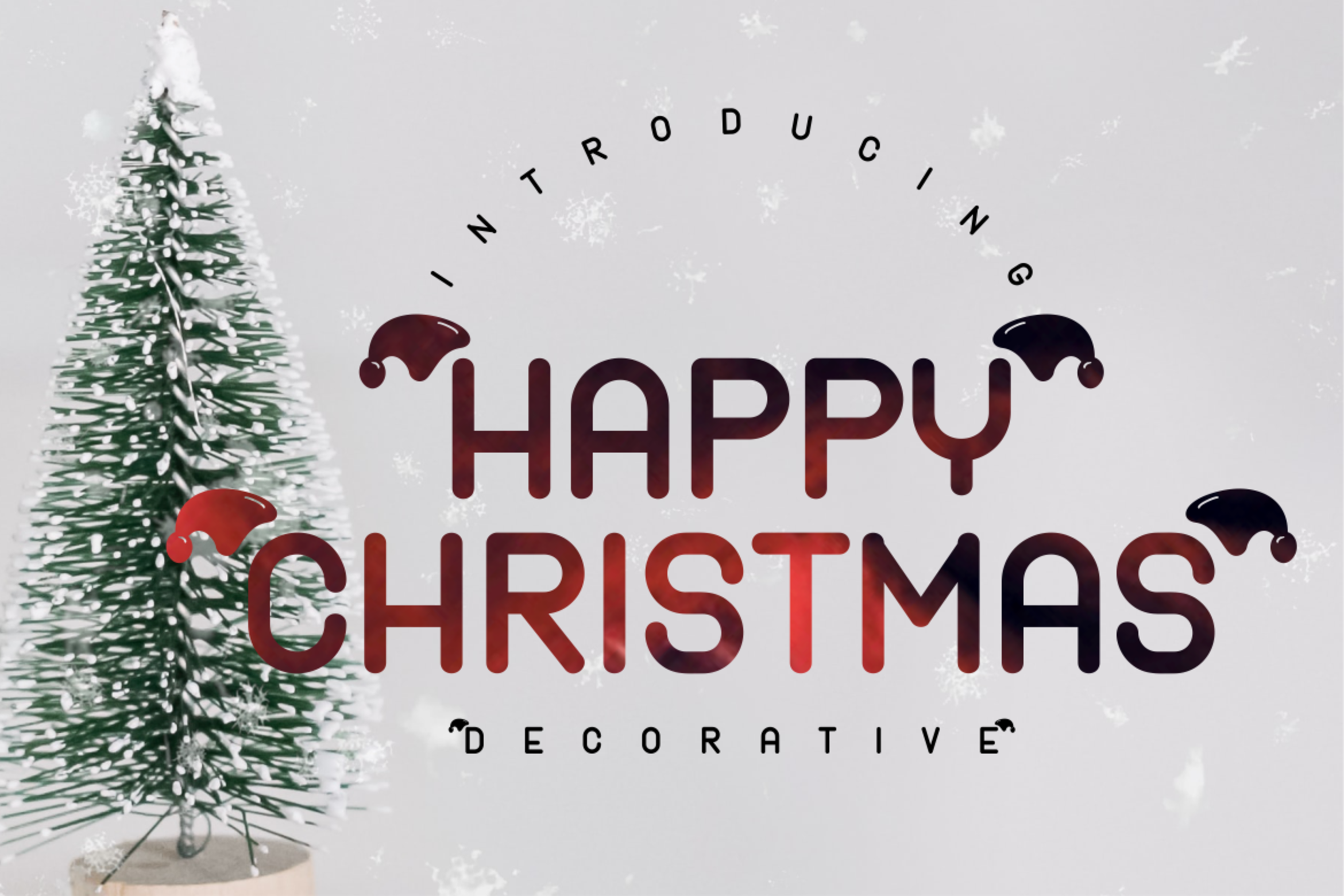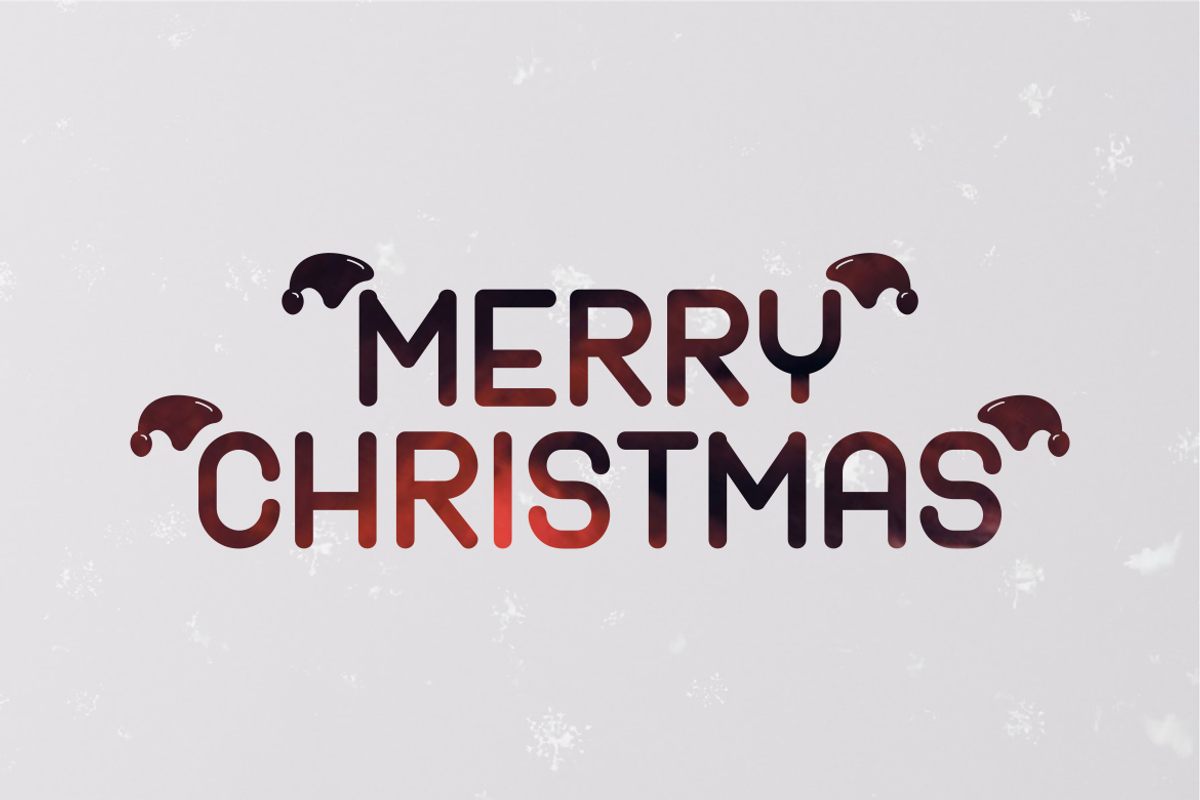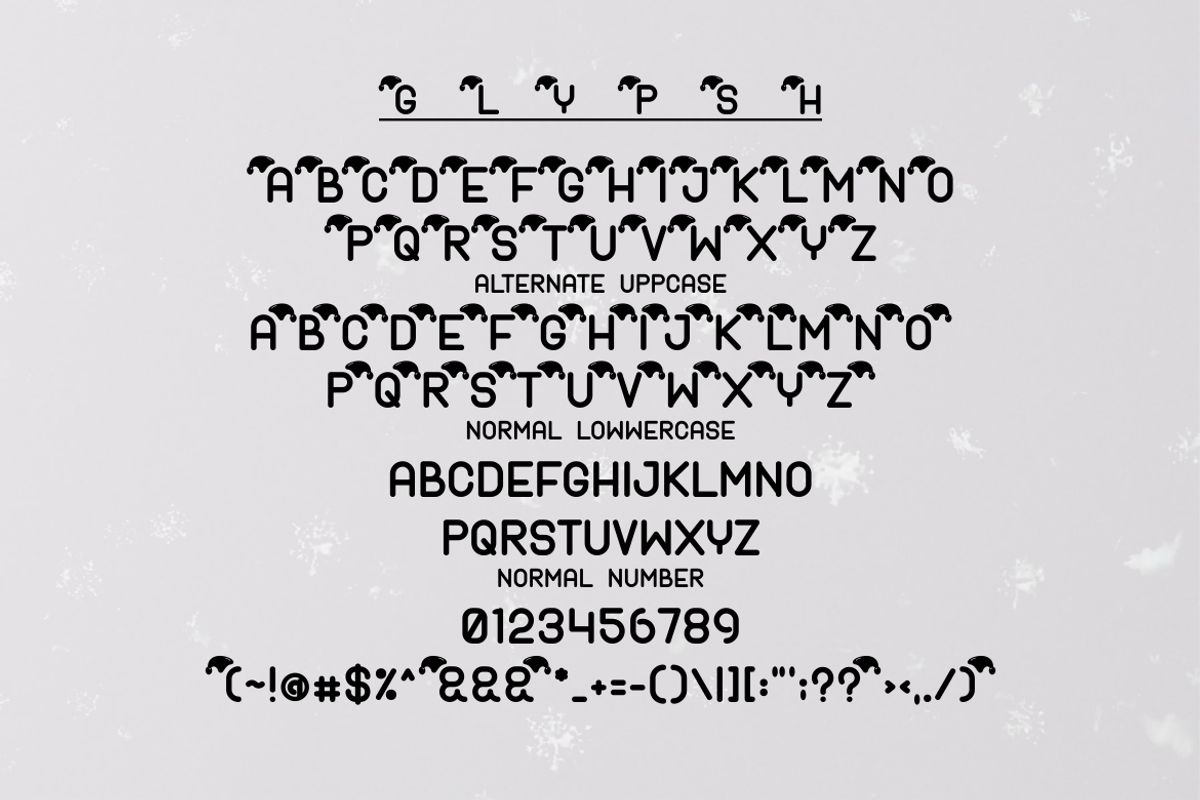
Happy Christmas Font Decorative
is a sans serif decorative font for christmas edition. This font is clear on its uses, and no doubt. for Christmas greetings or related to Christmas. You will feel the feel of Christmas and soft in this font, because it is combined with a sans serif font that is easy to read and bold. may be useful. Thank you